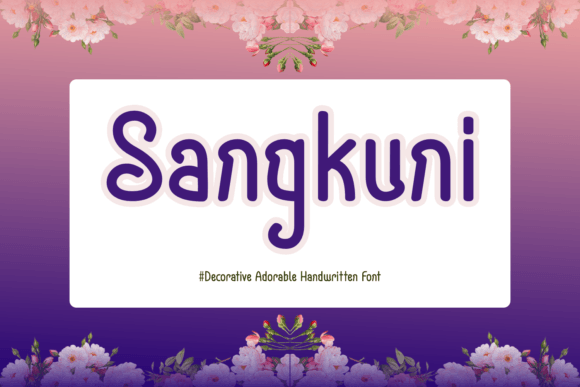
Unleash your creativity with Sangkuni Font, the playful and enchanting display font that will transform your designs into captivating works of art. Drawing inspiration from the charm of handwritten notes, Sangkuni Font exudes a vibrant personality that is sure to leave a lasting impression.
With its meticulously crafted characters, Sangkuni Font effortlessly captures the essence of playful elegance. Each letter dances across the page, evoking a sense of joy and wonder. Whether you're crafting logos, branding materials, or eye-catching social media graphics, Sangkuni Font is the perfect choice to add a touch of whimsy and delight.
Immerse yourself in a world of limitless possibilities with Sangkuni Font. This versatile font is perfectly suited for a wide range of creative projects, from invitations and greeting cards to posters and flyers. Its playful nature lends itself beautifully to children's books, packaging designs, and even quirky t-shirt designs.
Experience the magic of Sangkuni Font and watch your designs come to life with its infectious energy. Embrace the spirit of playfulness and let your imagination soar as you create captivating visuals that will leave your audience spellbound.